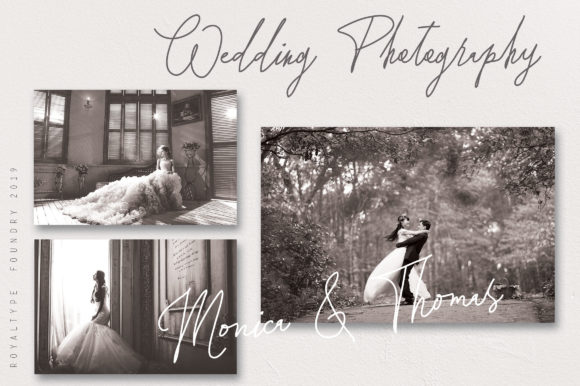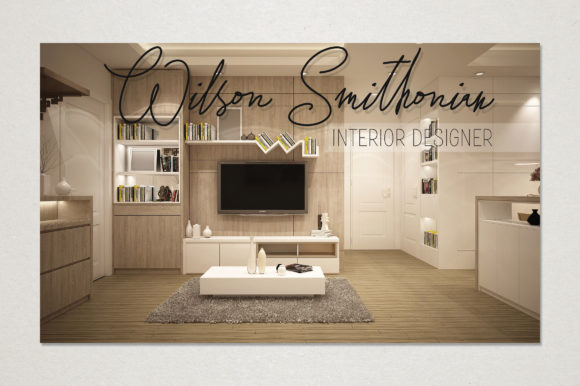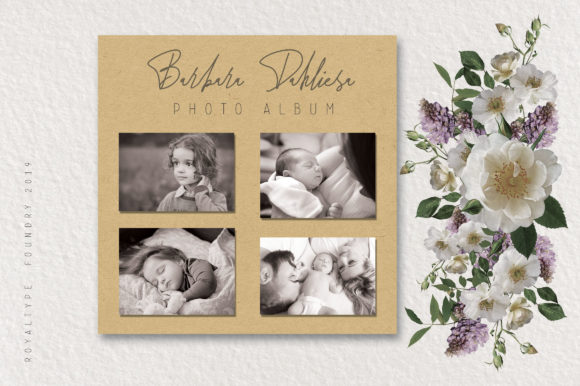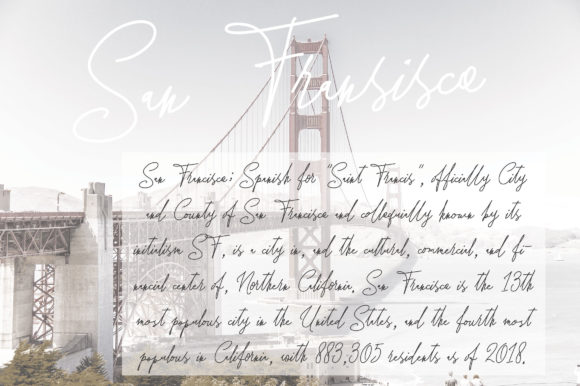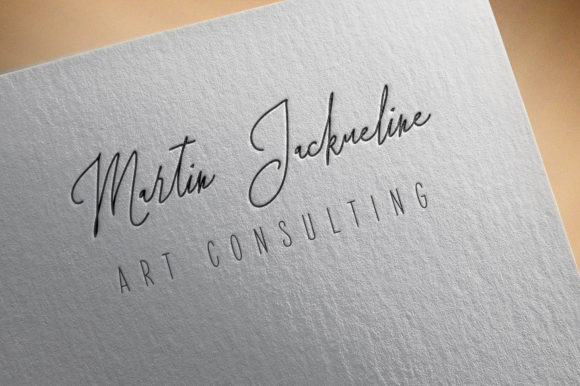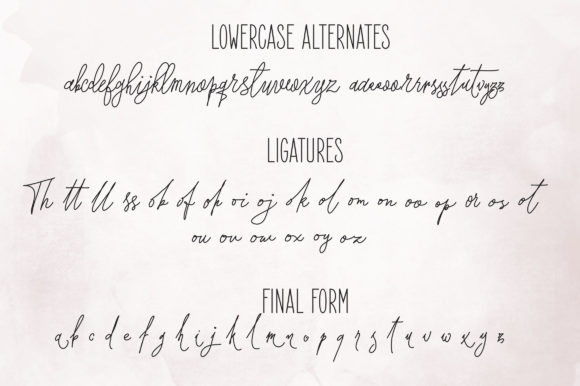
Forsythia Garden Font: A Luxurious Typeface Inspired by Nature’s Beauty
Forsythia Garden is a stunning signature typeface that draws inspiration from the breathtaking beauty of the forsythia flower. This gorgeous font is perfect for designers and crafters looking to add a touch of luxury and elegance to their projects. With its smooth, flowing curves and sophisticated charm, Forsythia Garden is sure to captivate audiences and leave a lasting impression.
The Inspiration Behind Forsythia Garden
The forsythia flower is one of the first signs of spring, known for its vibrant yellow blooms and delicate, curved petals. It’s a symbol of renewal, hope, and beauty, making it the perfect muse for a font that’s both elegant and eye-catching. The designers behind Forsythia Garden sought to capture the essence of this lovely flower, infusing their typeface with the same sense of luxury and refinement that the forsythia embodies.
Design Features of Forsythia Garden
Forsythia Garden is a carefully crafted font that boasts a range of beautiful design features. Its letters are characterized by:
- Luxurious curves: The font’s curves are smooth and flowing, evoking the delicate petals of the forsythia flower.
- Elegant lines: The lines that make up the letters are sophisticated and refined, giving the font a high-end feel.
- Intricate details: The font includes intricate details that add depth and interest to the letters.
Forsythia Garden is an ideal font for designers and crafters working on a variety of projects, including:
- Wedding invitations and stationery: The font’s elegant, sophisticated charm makes it perfect for wedding-related projects.
- Branding and packaging: Forsythia Garden’s luxurious feel makes it an excellent choice for brands looking to convey high-end quality.
- Signage and displays: The font’s beautiful curves and lines make it perfect for eye-catching signage and displays.
- Digital and print media: Forsythia Garden can be used in a range of digital and print media, from social media graphics to brochures and flyers.
Tips for Using Forsythia Garden
To get the most out of Forsythia Garden, try the following tips:
- Use it sparingly: Due to its elegant, sophisticated nature, Forsythia Garden is best used sparingly to add emphasis and impact.
- Pair it with contrasting fonts: Pair Forsythia Garden with simpler, more straightforward fonts to create visual interest and contrast.
- Experiment with colors: The font looks stunning in a range of colors, from metallic gold and silver to rich jewel tones.
Forsythia Garden is a breathtakingly beautiful font that’s sure to inspire designers and crafters. With its luxurious curves, elegant lines, and intricate details, this stunning typeface is perfect for adding a touch of sophistication and refinement to any project. Whether you’re working on a wedding invitation, branding campaign, or digital media project, Forsythia Garden is an excellent choice.